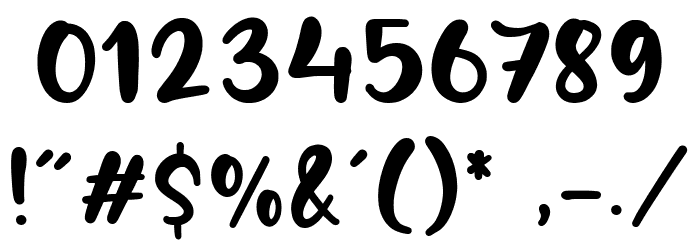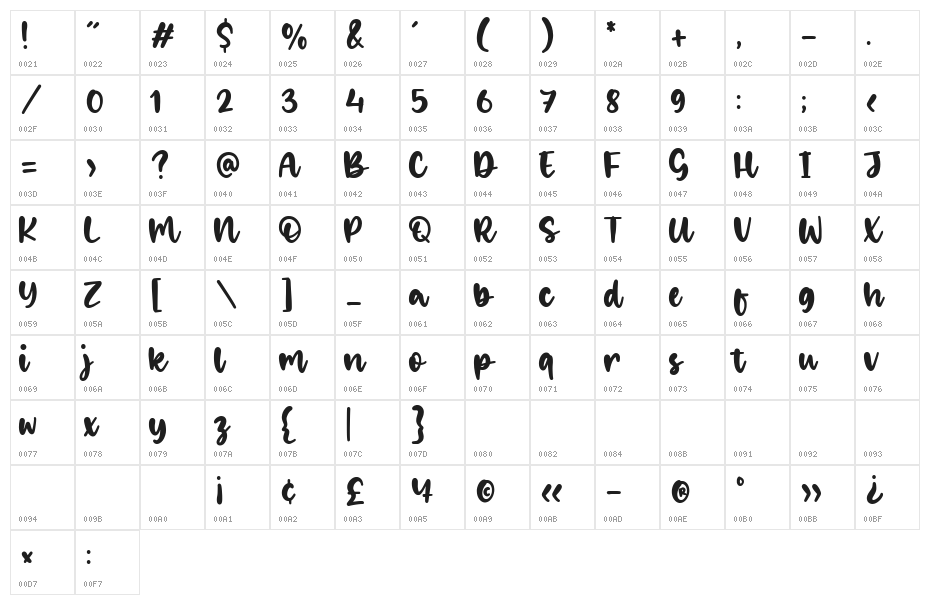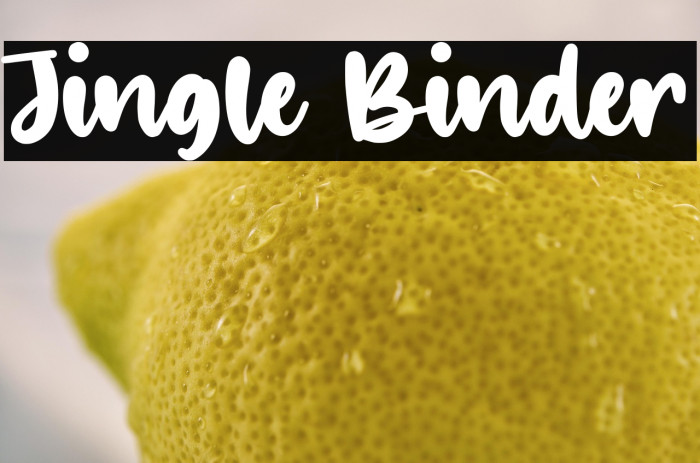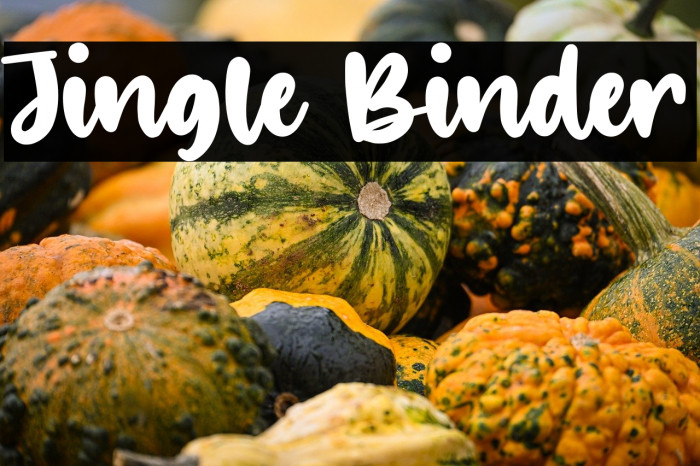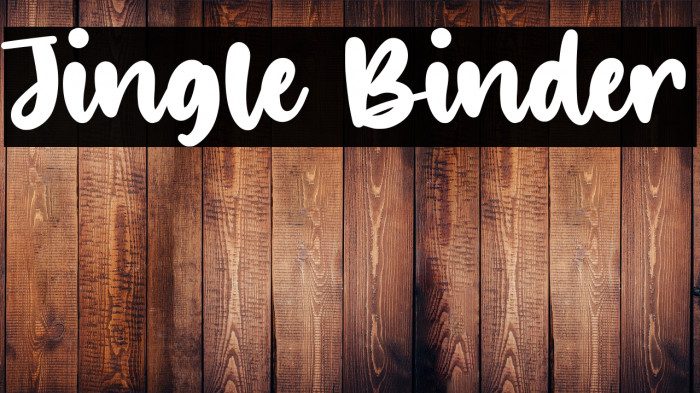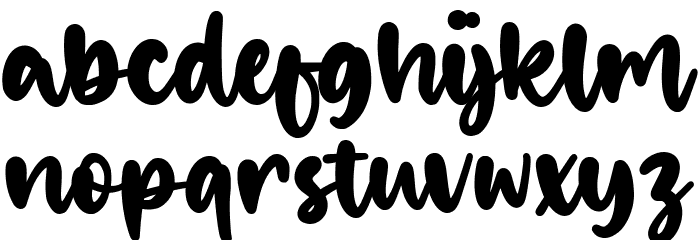
Jingle Binder Font
Jingle Binder Description
This playful and energetic font features a bold and flowing script style, reminiscent of casual handwriting. The letters are interconnected with smooth curves and rounded edges, giving it a friendly and approachable appearance. The uppercase and lowercase letters maintain a consistent style, with a slight slant that adds to its dynamic feel. The numbers and special characters are equally expressive, making it versatile for various design needs. Its thick strokes and uniform weight ensure readability while maintaining a lively aesthetic.